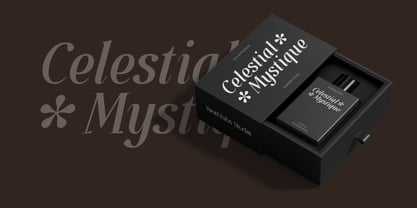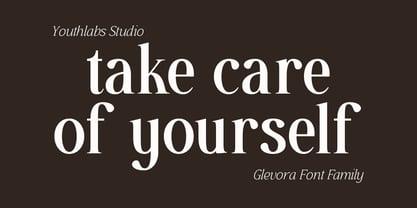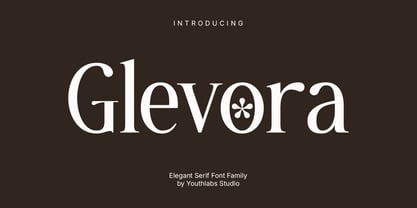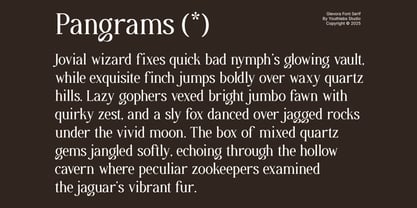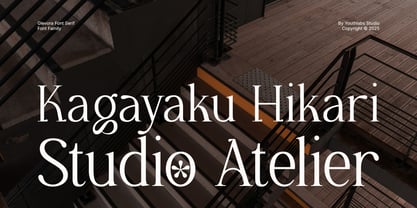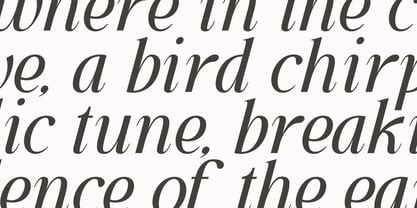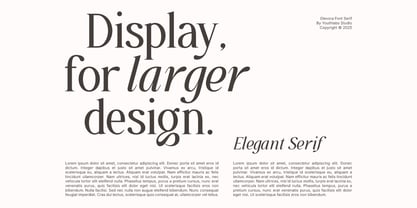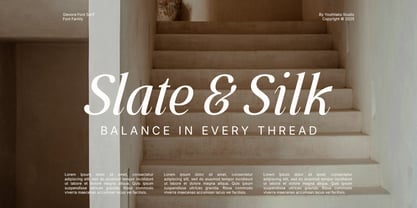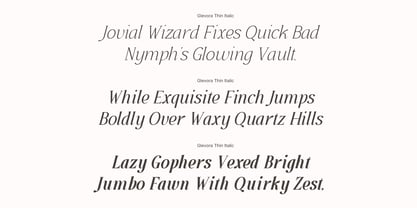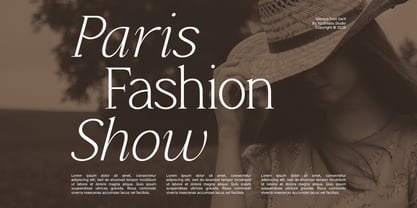
Glevora
by Youthlabs
The Glevora Font Family was designed by Fathi Al Ghazi and published by Youthlabs. Glevora contains 12 styles and family package options. More about this family
Glevora Serif is a refined serif typeface that blends vintage charm with modern elegance. Designed by Youthlabs Studio, this font features soft, rounded terminals and playful flower-inspired asterisks that bring a sense of whimsy and sophistication. With its high contrast strokes and graceful curves, Glevora Serif is perfect for beauty products, high-end packaging, editorial design, and lifestyle branding.
Whether used in large headlines or elegant logotypes, Celestial Mystique delivers personality and presence—capturing the essence of timeless allure with a contemporary twist.
Designers: Fathi Al Ghazi
Foundry: Youthlabs